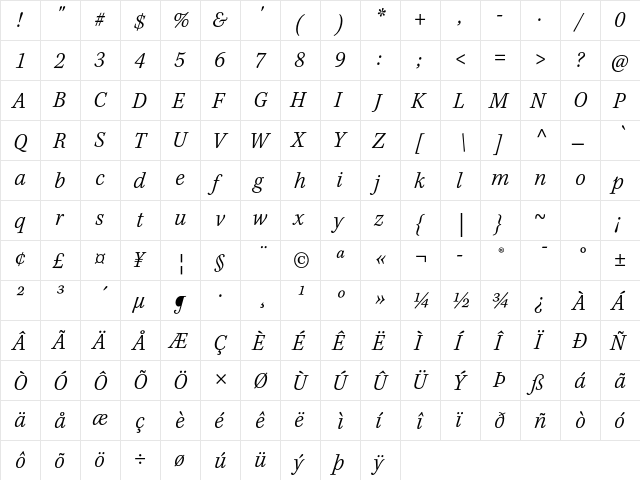
Kepler Std Light Semicondensed Italic Caption Font Preview
| Designer | Robert Slimbach |
Design Context for Kepler Std Typeface
Kepler Std offers clean, dependable letterforms without strong stylistic allegiance, making it a practical choice for designers who need flexibility. Its italic angle brings a sense of urgency and motion to the letterforms. Its slender proportions lend an understated elegance to any composition. The condensed width makes it efficient for tight spaces without sacrificing legibility.
Pro Tip: Try Kepler Std for annotation and caption copy alongside an upright companion — the contrast in angle creates a dynamic but ordered typographic system.